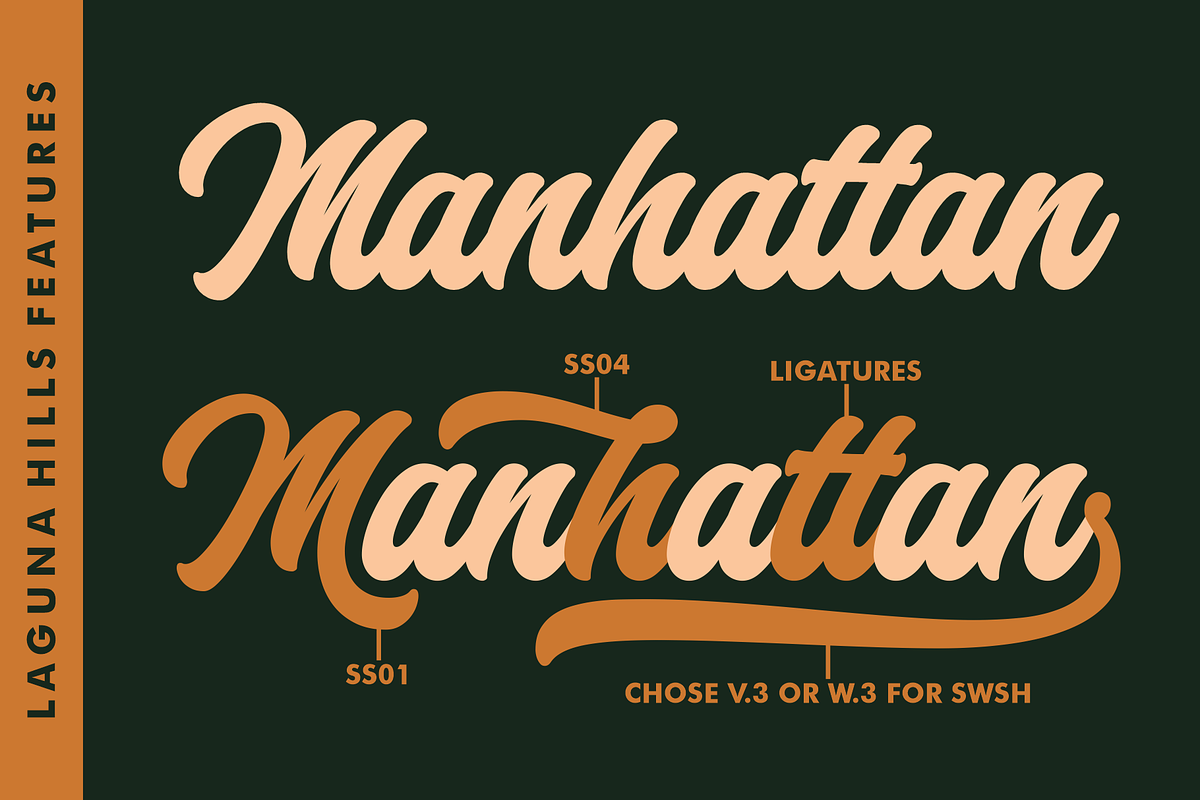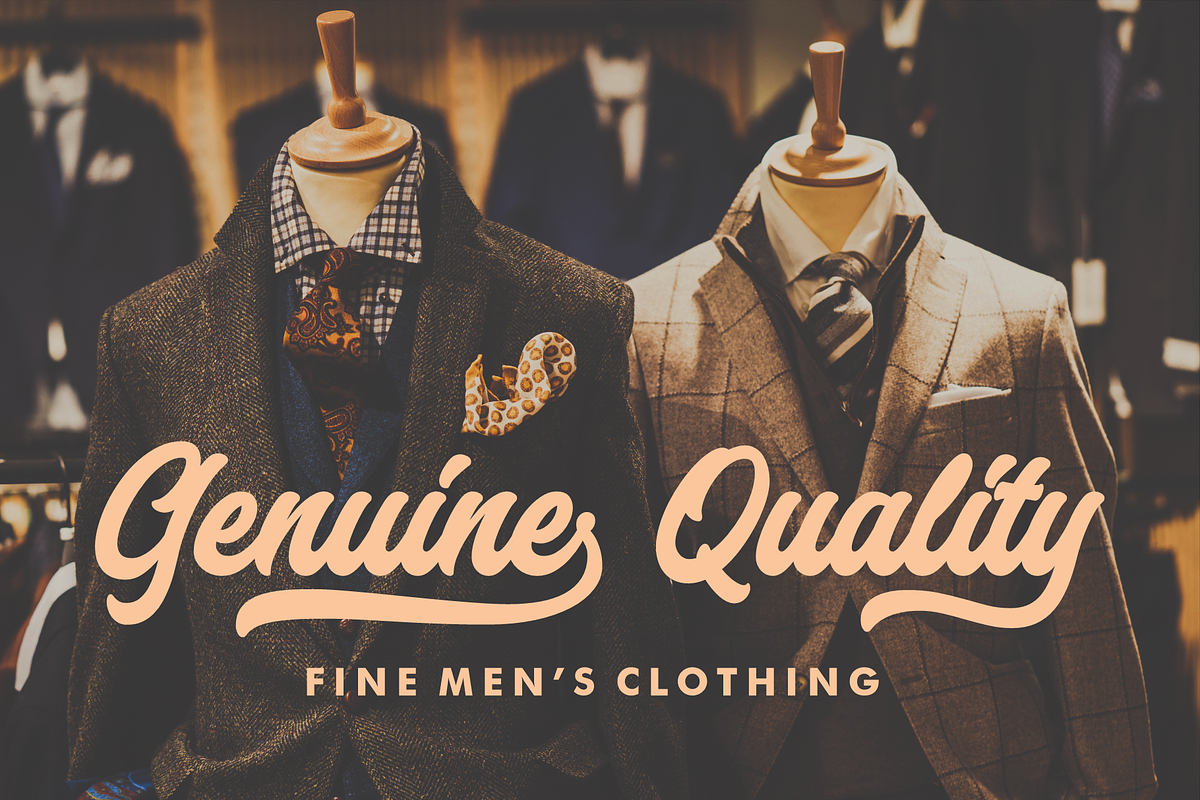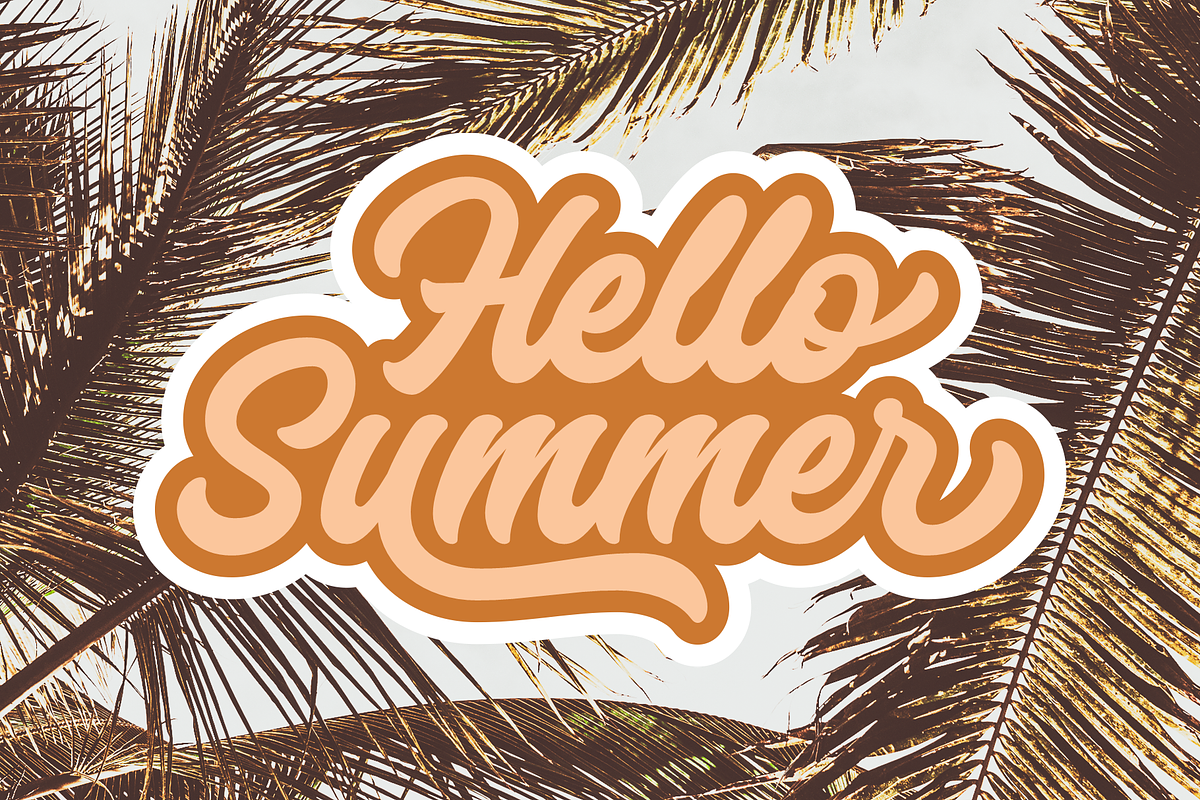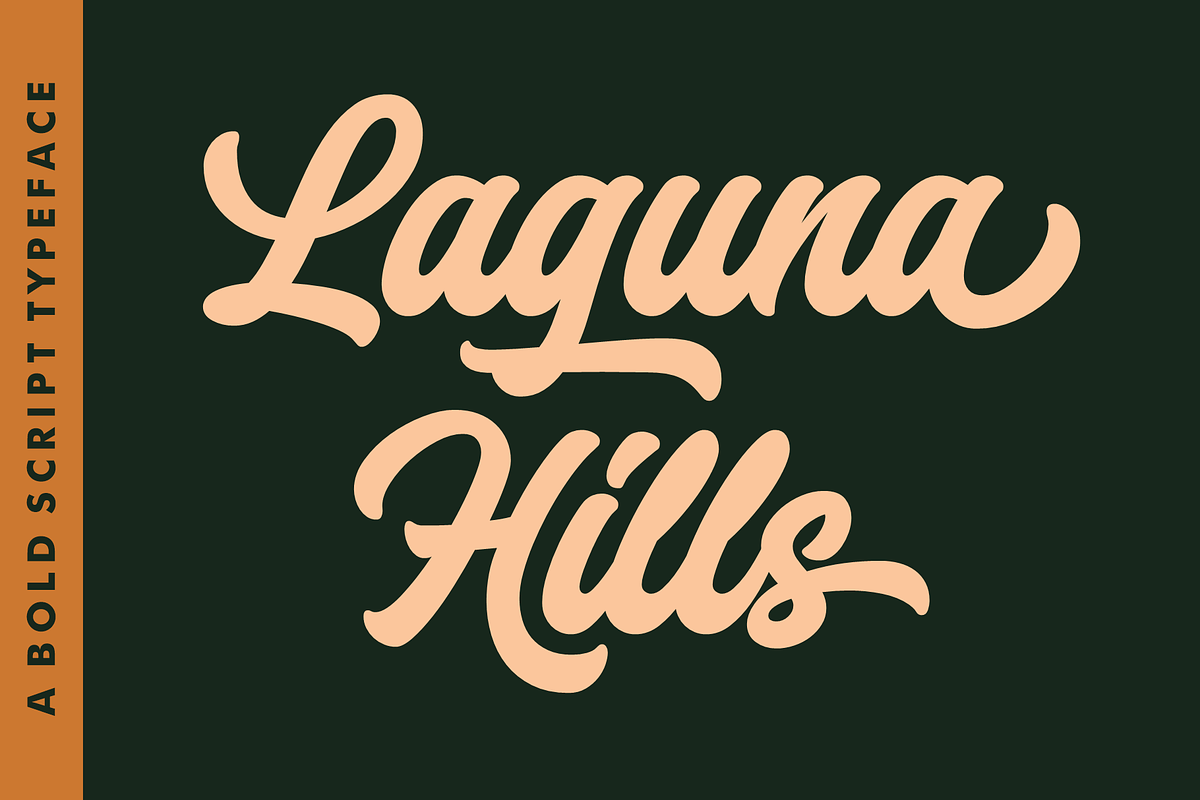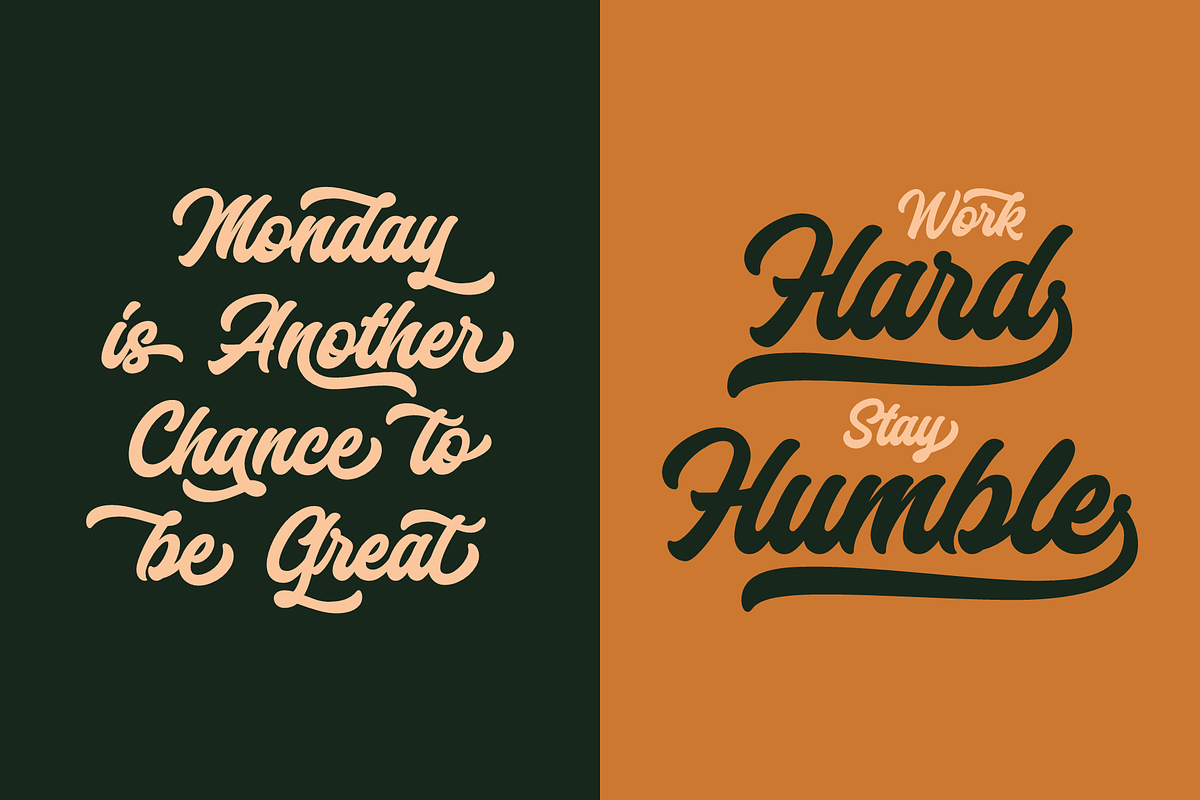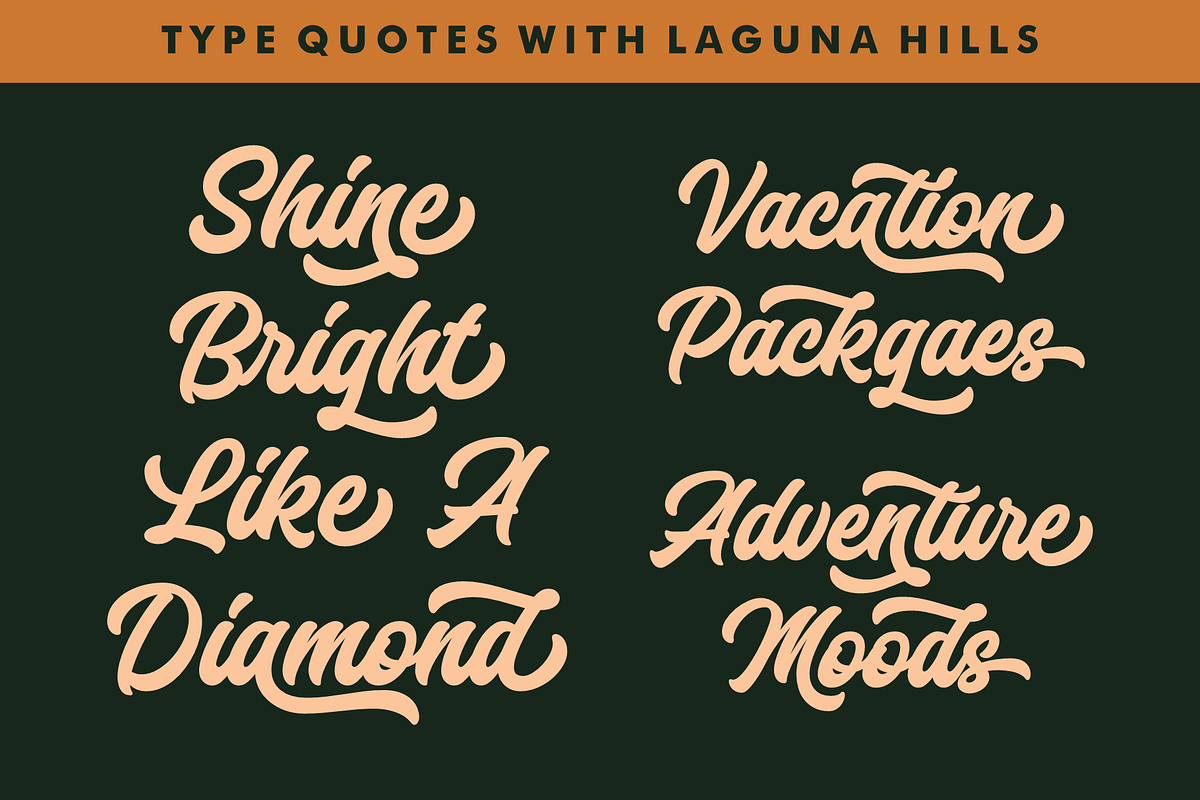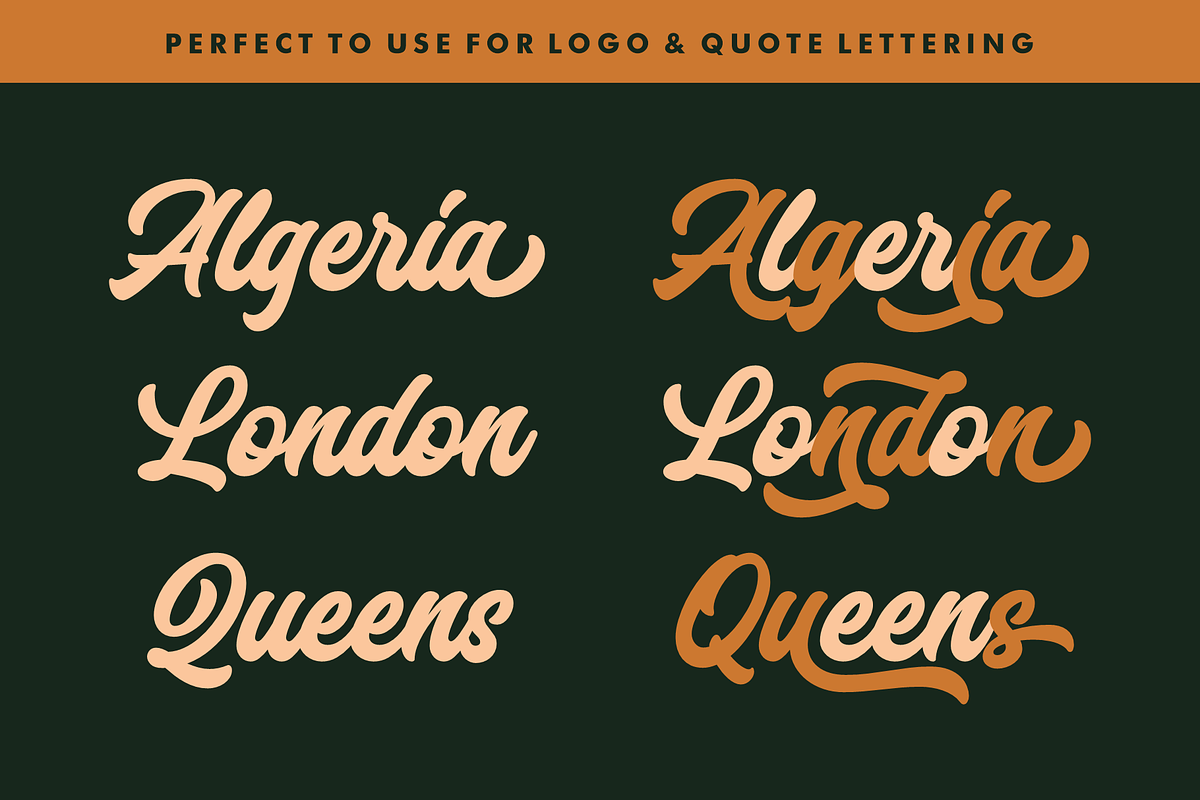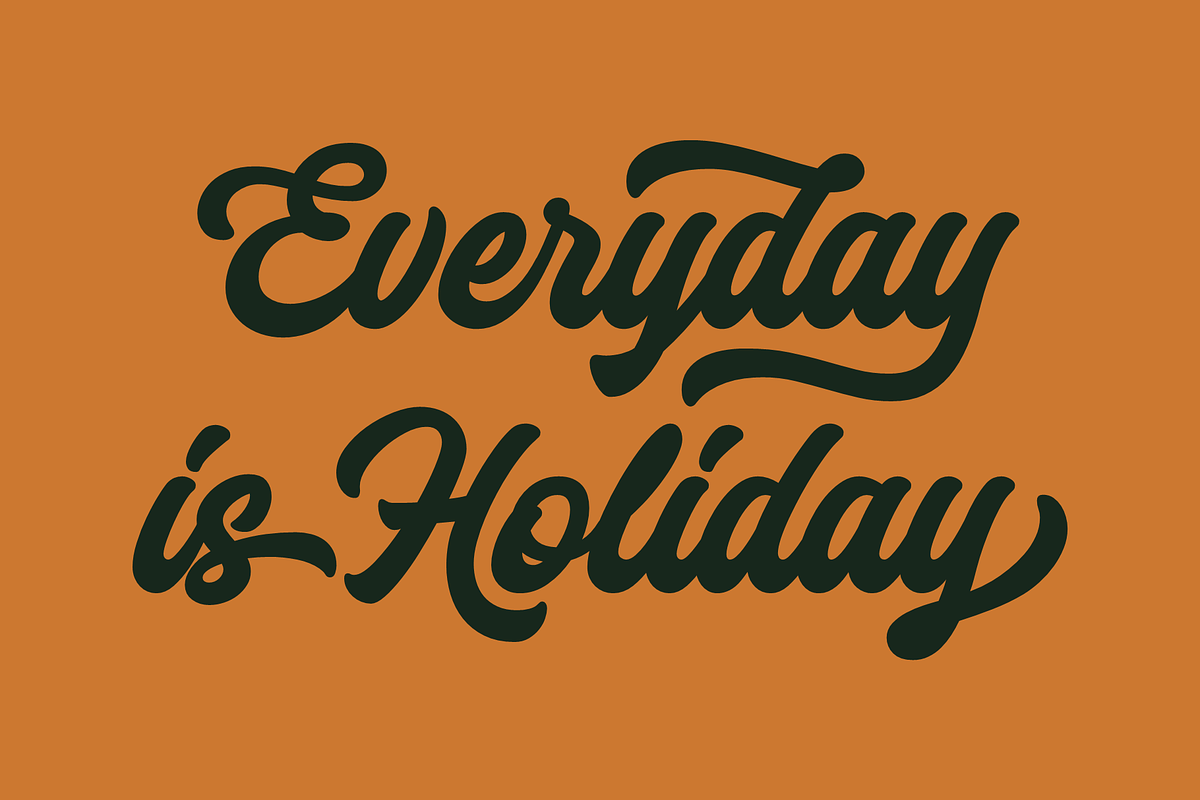
Laguna Hills Font
Laguna Hills Font is a connected script font with clean lines, smooth curve combined, and dramatic movement. It’s perfect for creating hand-made lettering typography in an instant. The special letter gives your design some extra flair, which can be used to create awesome vintage designs or brush style designs. If you are looking for something unique to help add coolness and beauty to your design, then Laguna Hills Font is the right choice!
Laguna Hills Features:
A full set of upper & lowercase characters
Numbers & punctuation
A full set of upper & lowercase characters (Alternates)
- A full set of upper & lowercase characters
- Numbers & punctuation
- A full set of upper & lowercase characters (Alternates)
- Swashes
- Multilingual symbols
Why Laguna Hills Font is worth a look